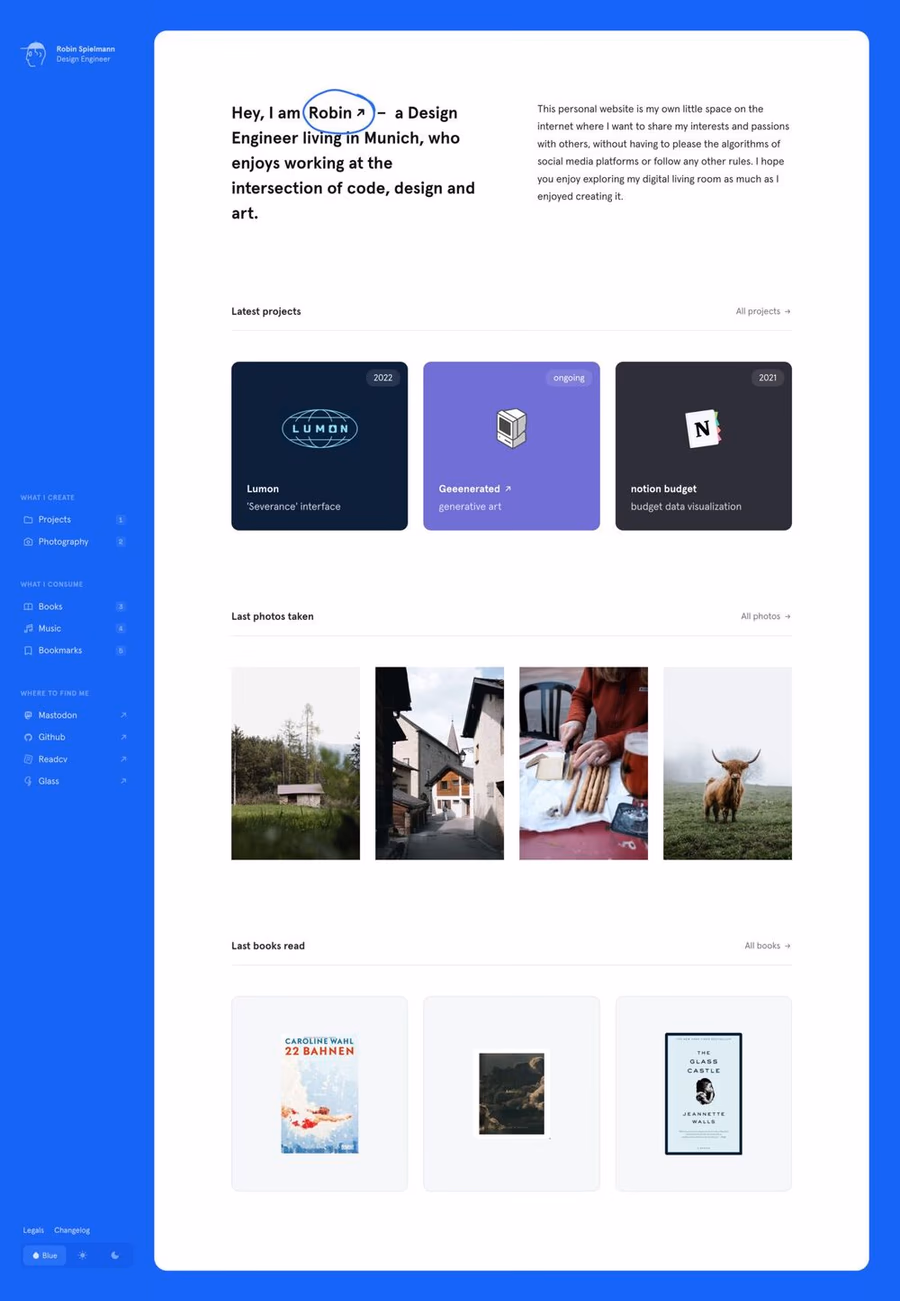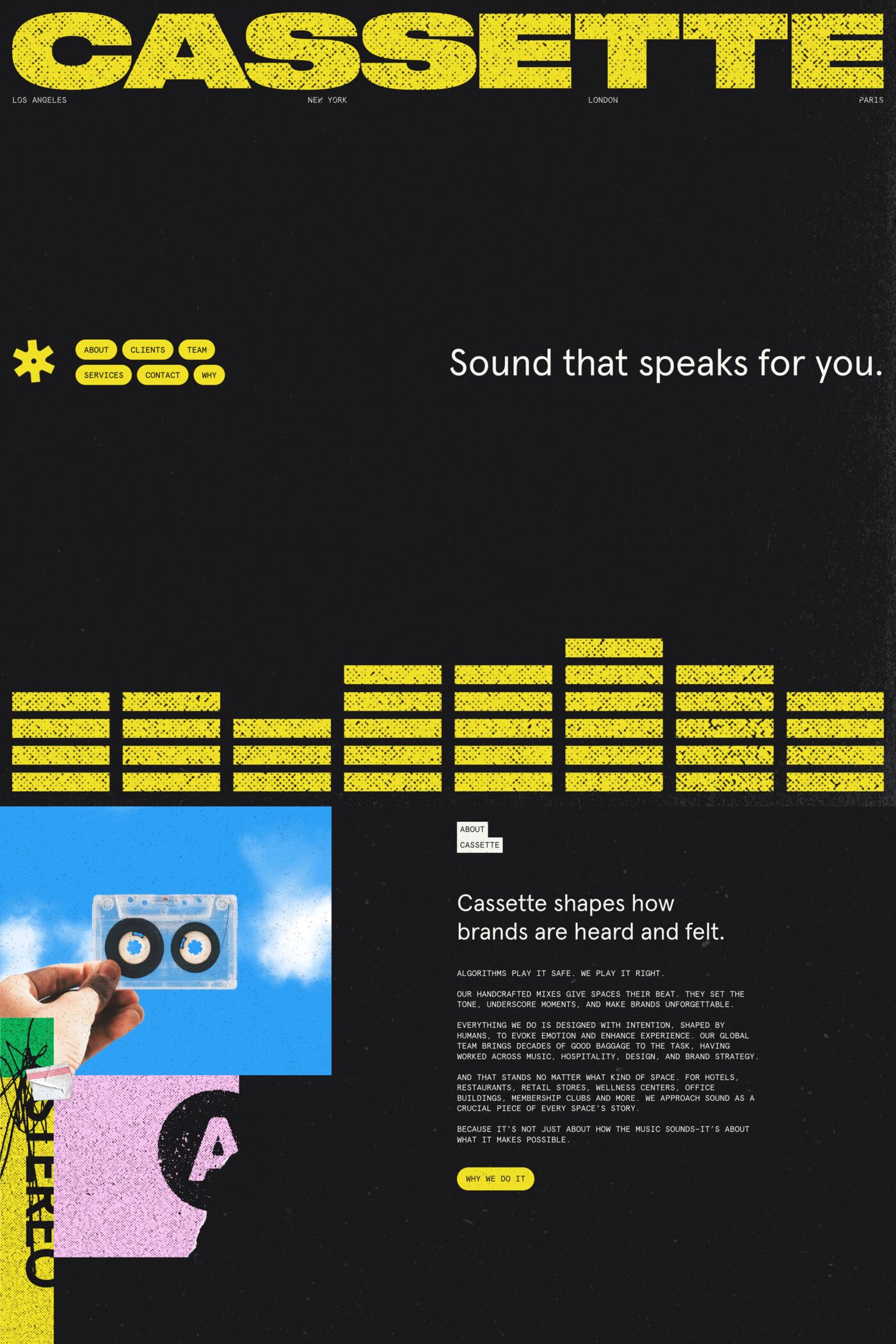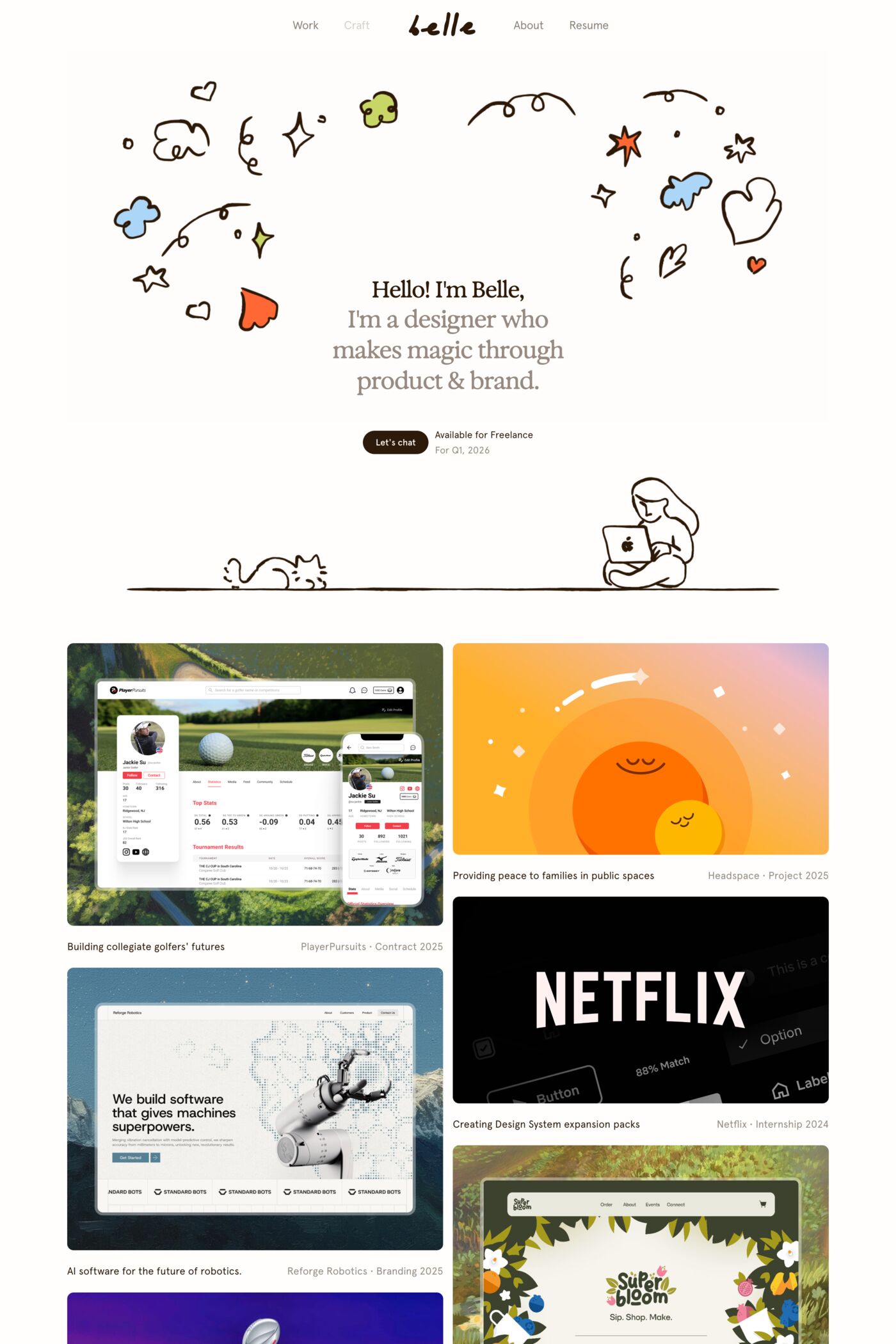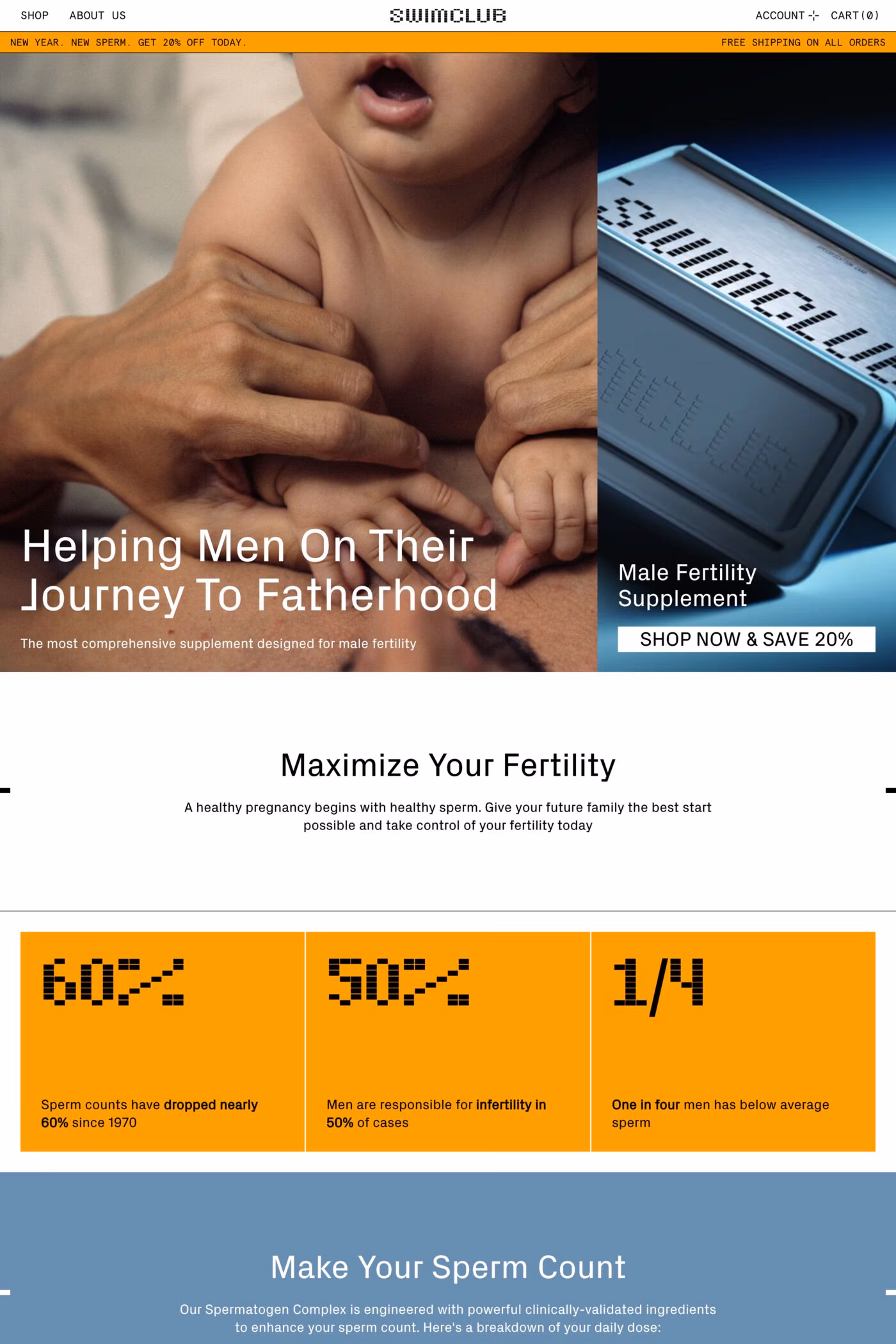
Aperçu is a sans-serif typeface from Colophon.
Drawing of Aperçu began in December 2009, and was tried & tested throughout a number of design commissions. Aperçu aimed to create a synopsis or amalgamation of classic realist typefaces: Johnston, Gill Sans, Neuzeit & Franklin Gothic into a contemporary flavor. A sum of parts from the outset, Aperçu builds upon these initial reference points to create an extensive and usable family.